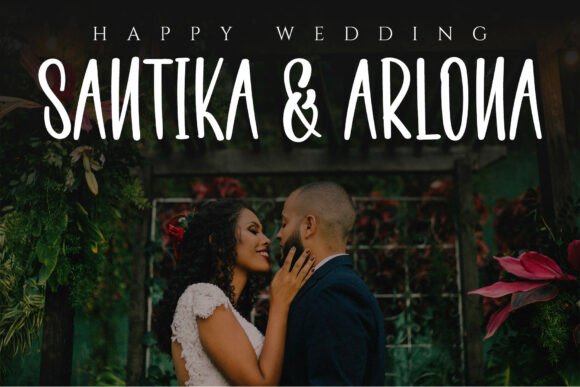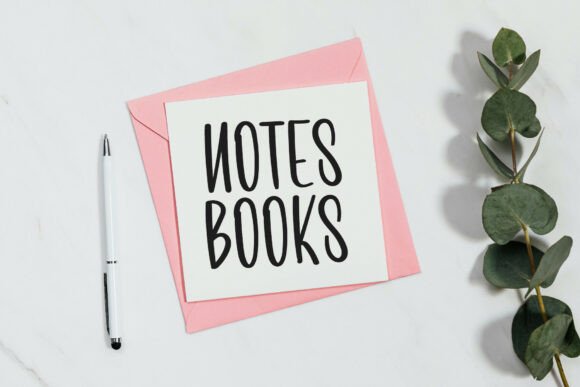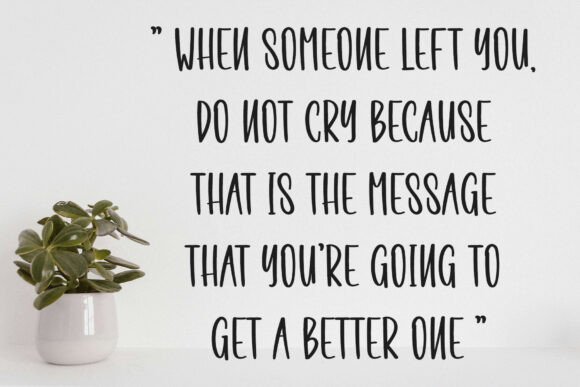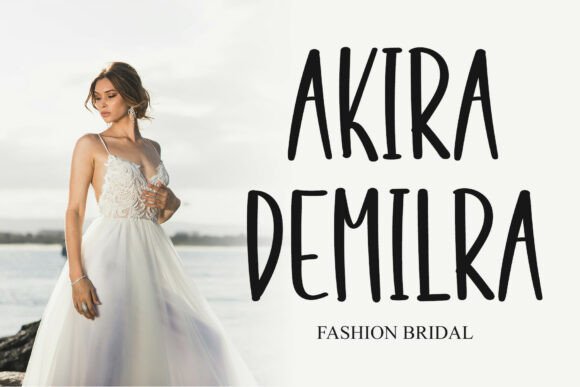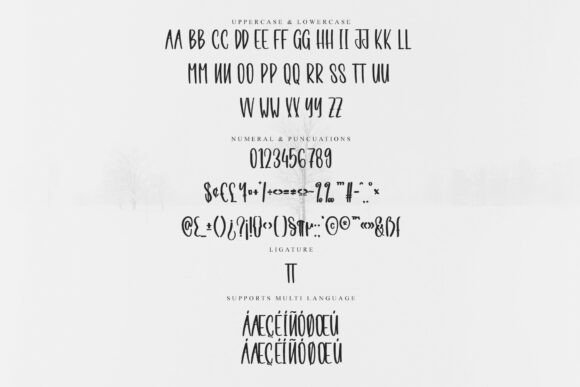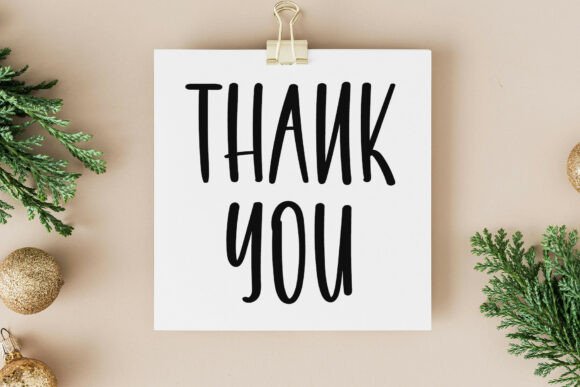
Unveiling the Elegance of Behind Handwriting Font: A Timeless Vintage Masterpiece
In the realm of typography, few fonts manage to capture the essence of class and sophistication as effectively as Behind Handwriting. This exquisite font seamlessly blends the fluidity of script handwriting with a bold, vintage touch, making it an ideal choice for designers and crafters seeking to imbue their projects with a sense of elegance and timelessness. In this article, we’ll delve into the distinctive features of Behind Handwriting, explore its versatility, and discuss how it can elevate your design endeavors.
The Distinctive Features of Behind Handwriting
Behind Handwriting is not just a font; it’s an experience. Its fluid strokes, graceful curves, and dynamic flow bring to mind the artistry of handwriting, infused with a modern sensibility that ensures it remains relevant and impactful. The font’s design is characterized by:
- Fluid Strokes: The fluidity of Behind Handwriting’s strokes gives it a natural, handwritten feel that is both approachable and sophisticated.
- Graceful Curves: The elegant curves of the font add a touch of refinement, making it suitable for projects that demand a high level of sophistication.
- Dynamic Flow: The dynamic flow of Behind Handwriting ensures that text appears lively and engaging, perfect for capturing the attention of your audience.
One of the key strengths of Behind Handwriting is its versatility. This font can be used across a wide range of design projects, including:
- Stylish Signatures: Add a personal touch to your documents or artworks with a stylish signature that exudes elegance.
- Branding Design: Use Behind Handwriting to create a memorable brand identity that stands out from the crowd.
- Nostalgic Vintage Aesthetics: Bring a touch of nostalgia to your designs with the font’s vintage touch, perfect for projects that require a classic, timeless feel.
Why Choose Behind Handwriting?
With so many fonts available, why should Behind Handwriting be your go-to choice? Here are a few compelling reasons:
- Elegance: Behind Handwriting brings an unparalleled level of elegance to your designs, ensuring they leave a lasting impression.
- Uniqueness: The font’s distinctive style ensures that your projects stand out, avoiding the generic look that can come with using more common fonts.
- Effortless Sophistication: With Behind Handwriting, achieving a sophisticated look has never been easier. The font does the heavy lifting, allowing you to focus on the creative aspects of your project.
Tips for Using Behind Handwriting Effectively
To maximize the impact of Behind Handwriting, consider the following tips:
- Pair with Simplicity: Let Behind Handwriting be the focal point of your design by pairing it with simpler fonts or clean backgrounds.
- Experiment with Sizes: Don’t be afraid to experiment with different sizes to emphasize certain words or phrases, adding depth to your design.
- Play with Colors: Take advantage of the font’s versatility by using it in various colors that complement your design’s overall aesthetic.
Behind Handwriting is more than just a font; it’s a design statement. Its unique blend of script elegance and vintage boldness makes it an invaluable asset for designers and crafters looking to create impactful, sophisticated designs. Whether you’re working on a branding project, crafting a stylish signature, or aiming to bring a touch of nostalgia to your work, Behind Handwriting is the perfect choice. Embrace the elegance and uniqueness it offers, and watch your designs transform into timeless masterpieces.